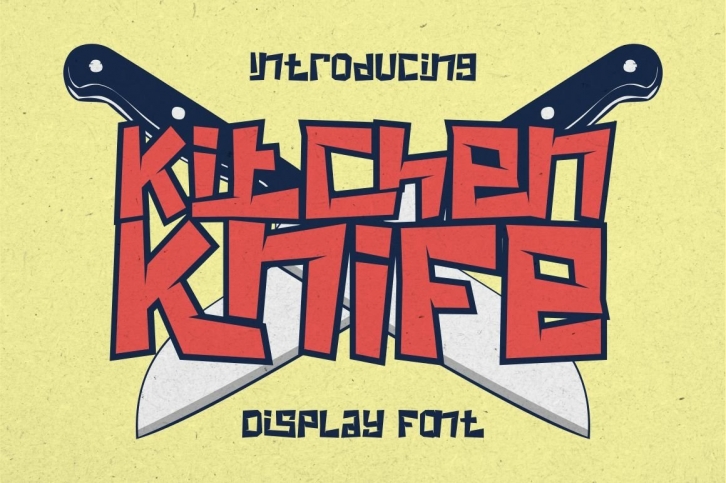
Kitchen Knife is a great font that was designed by PutraCetol Studio. Imagine the amount of combinations you can create using this font! The archive is 13.93 MB and it was released on September 5, 2022. Kitchen Knife looks beautiful on wedding invitations, greeting cards, logos, posters, labels, t-shirt designs, logos, business cards and is perfect for use in ink or watercolor works, fashion, magazines, packaging and food menus, children's books and more!